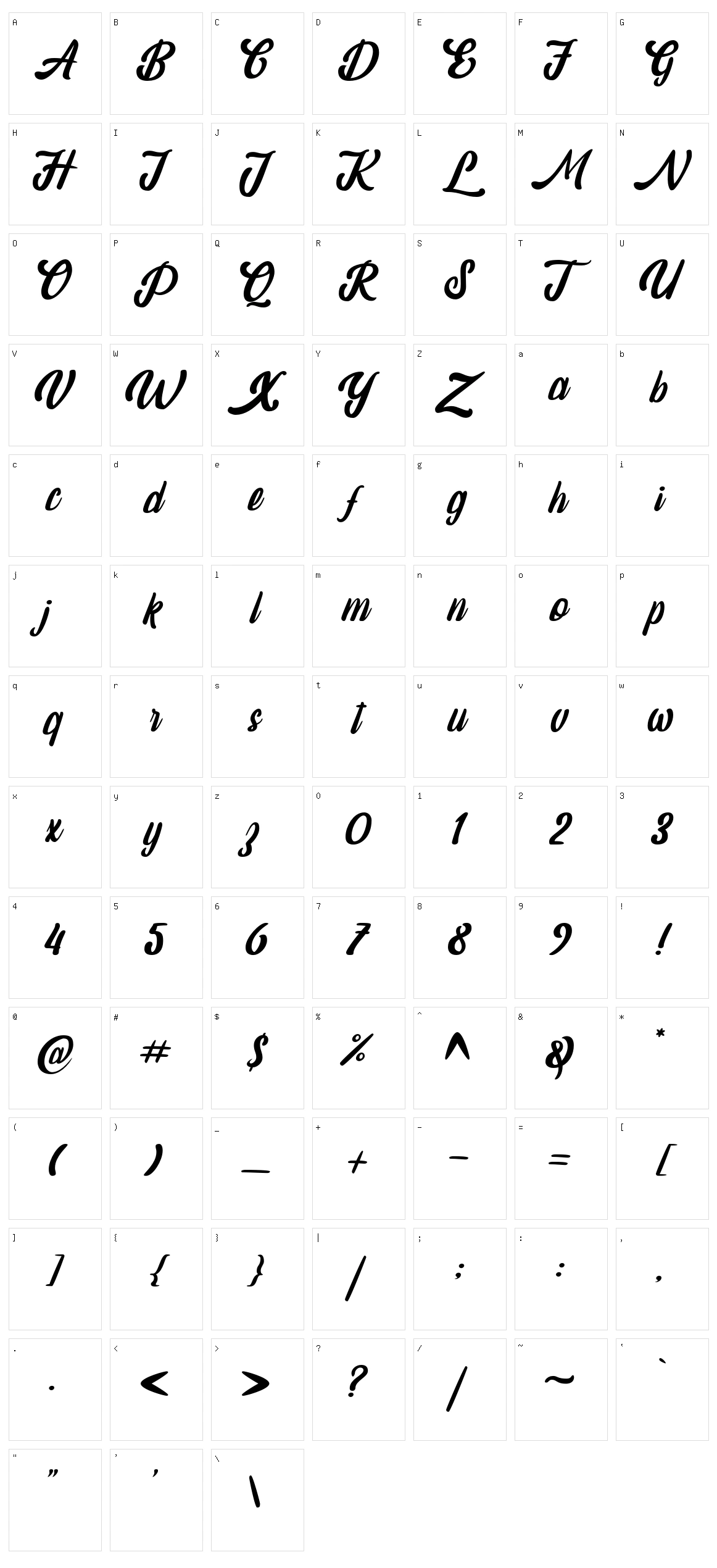
The free font Amaranthine is carefully designed by semuthitam, showcasing a thoughtful balance of creativity and usability and falls under the Old-School font style. When you download the ZIP file, it contains only 56.47 KB of font files, making it lightweight and quick to download. Please review the license details below to understand permitted usage and distribution rights. If license information is not available, we recommend using this font for personal projects only or contacting the author directly for commercial usage permissions.